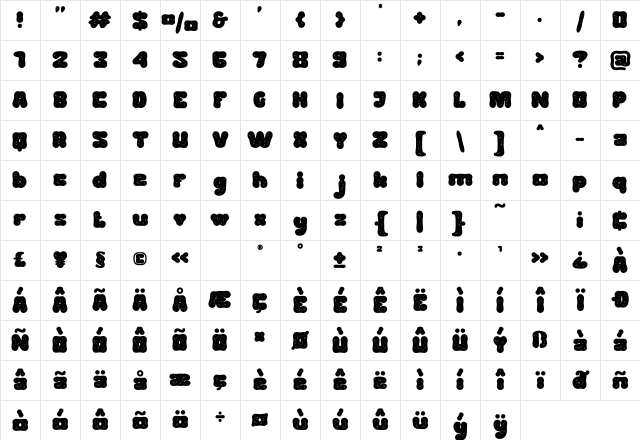
The Hepcat Textured Free Font
The Hepcat Textured
Style: Textured
Foundry: Putracetol Studio, Karanganyar.
Designer: Putra Novembria Candra Kusuma
Design Context for The Hepcat
The Hepcat embraces imperfection - its rough, textured character adds raw authenticity to designs that want to feel lived-in and unconventional.
Pro Tip: Use The Hepcat at larger sizes where the texture and irregularity of each letterform can be clearly seen - it loses its character at small sizes.